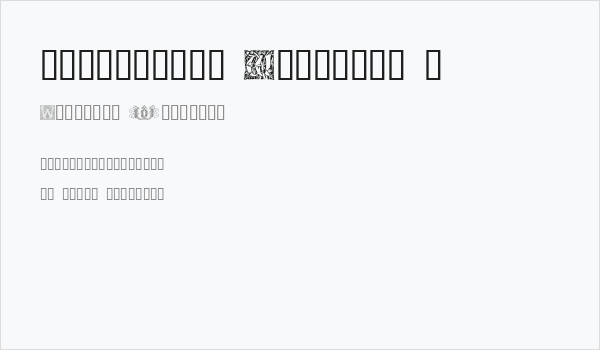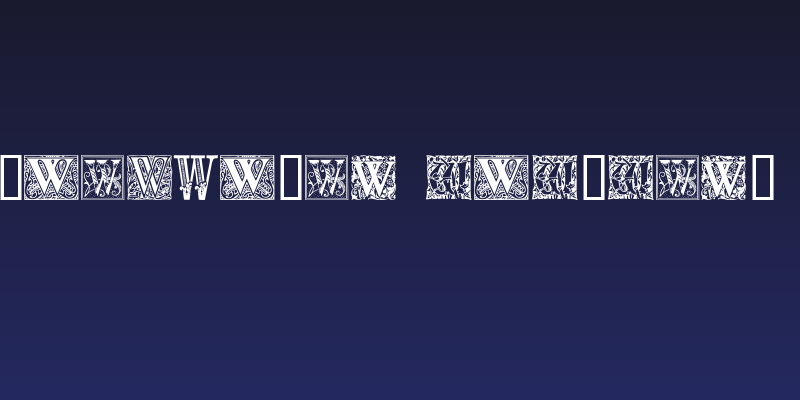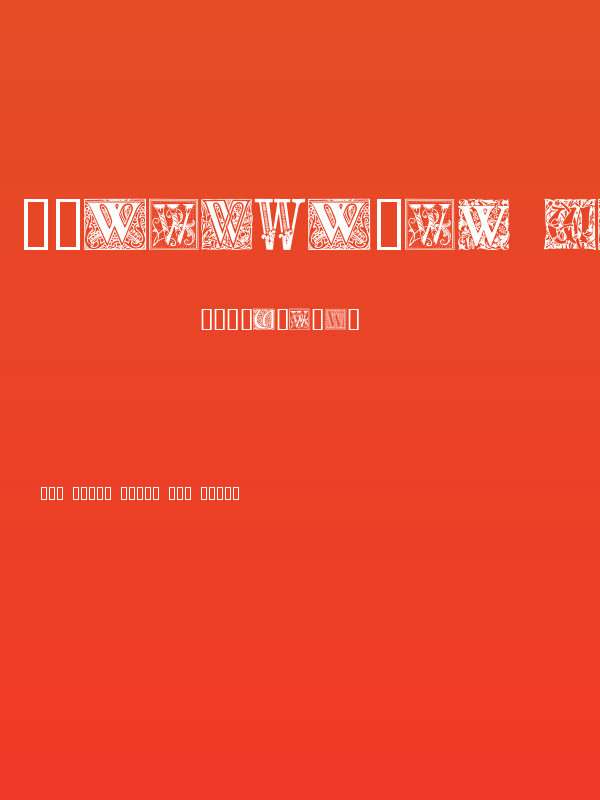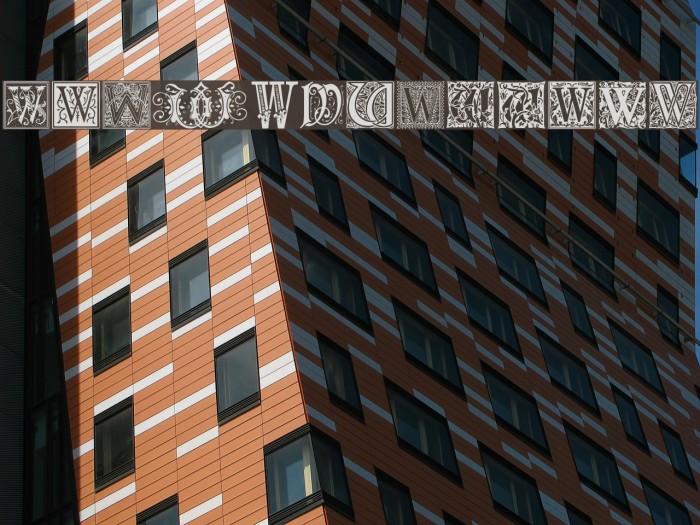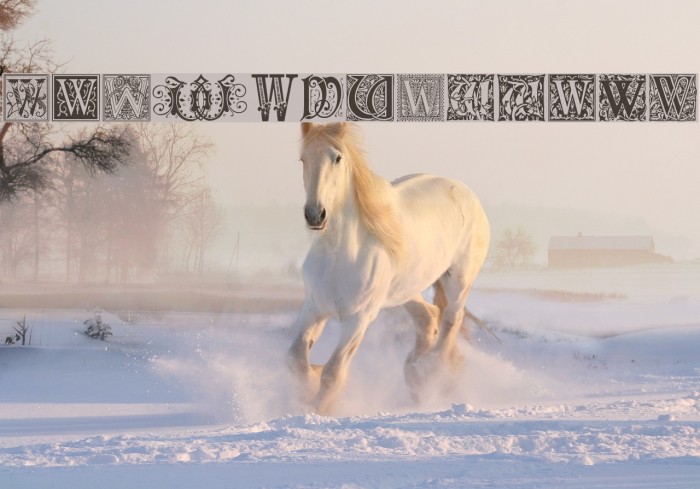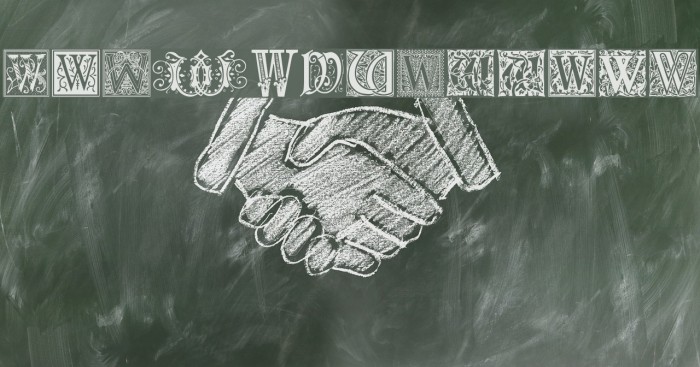
Ornamental Initials W Font
Ornamental Initials W Description
This font features highly decorative and ornate initials, each letter encapsulated within an intricate frame that showcases elaborate patterns and flourishes. The design is reminiscent of medieval manuscripts, with each letter being a work of art in itself. The embellishments around the letters are detailed, with swirling vines, floral motifs, and geometric shapes that add a sense of grandeur and elegance. The font is primarily uppercase, designed to stand out as decorative initials or drop caps in a text. The intricate details make it suitable for projects that require a touch of historical or classical elegance.
| Overall Style | Vintage |
| Proposed Projects | Ideal for use in wedding invitations, historical documents, book covers, or any project requiring a classical and elegant touch. |